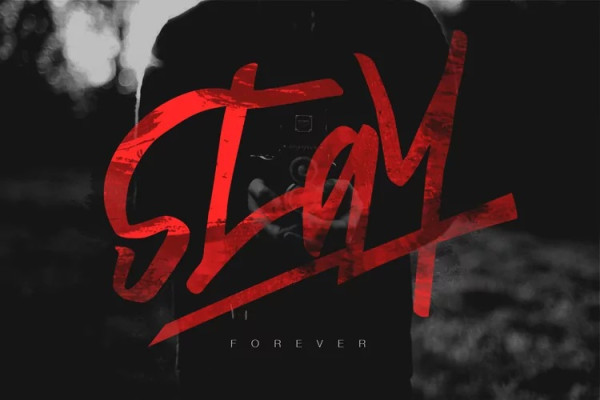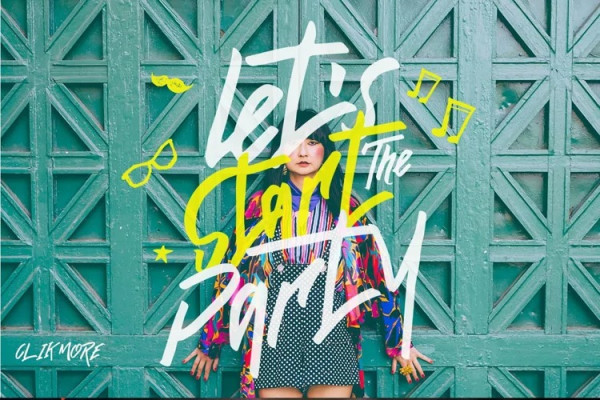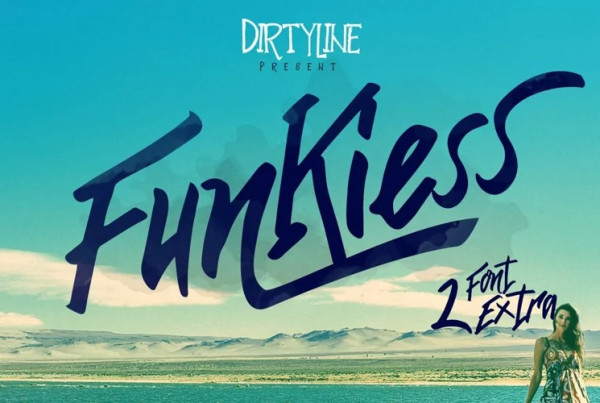
Funkiess Font
Funkiess Font handwritten letters and some combination of style Street and Funky. wild hand and imperfect flow give the natural looks. You can use it as a logo, badge, insignia, packaging, headline, poster, t-shirt/apparel, greeting card, and wedding invitation.